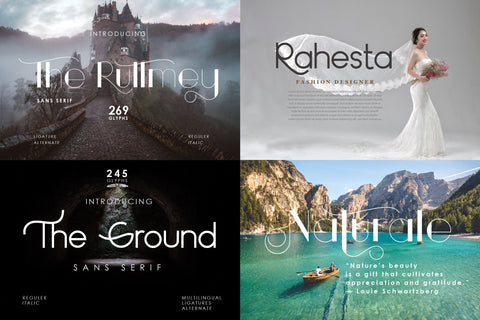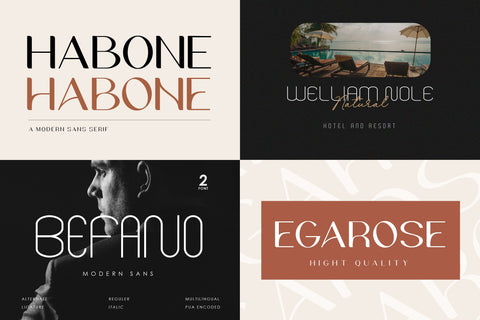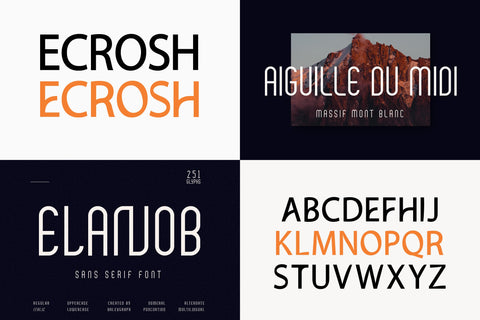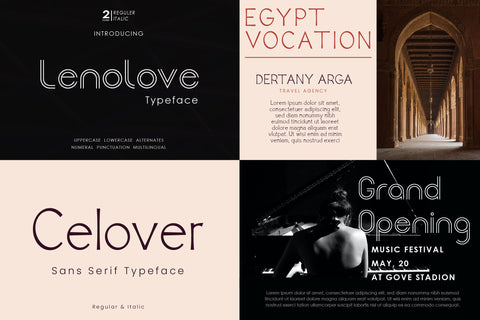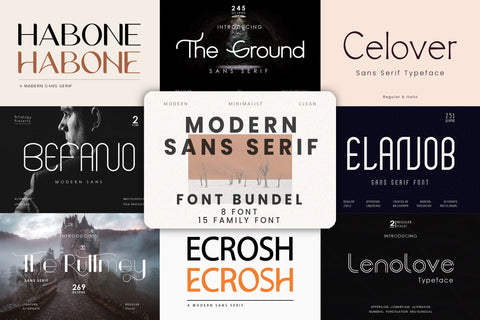
Font Bundle - Modern Sans Serif Vol 2
The bundle comes with many opentype features such as Alternates, Ligature, PUA Encode and also support multilingual.
This bundle is perfect for logos, watermarks on photography, branding, advertisement, quotes, invitations, stationery, wedding design, album covers, business cards, clothing, magazines, posters, and more!